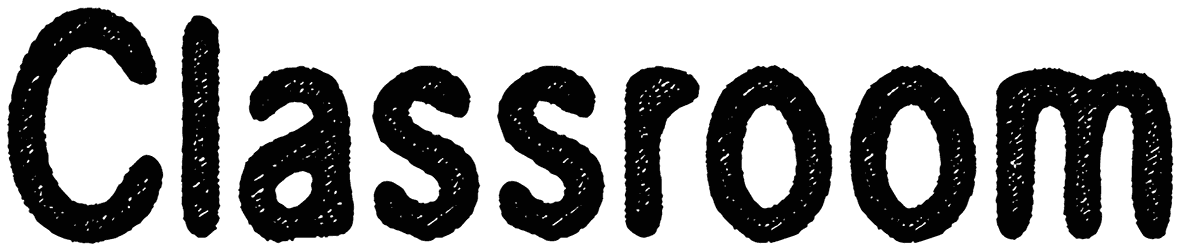
Classroom Font
The stamp font Classroom, which has a structure that is dirty and has rough letters, can be utilized for a variety of applications, including printed journals and advertisements.
Even though it doesn’t have any numbers, the choice to use this fancy, eroded font may have been made on purpose to make the reader feel more deeply. In the same way that you can rely on this font, you can do the same with the other fonts provided by RB.